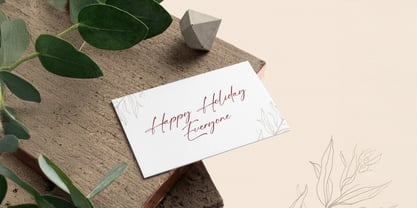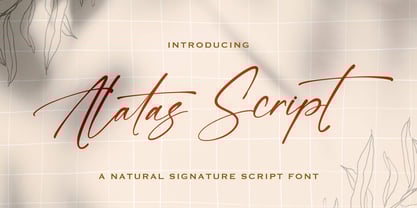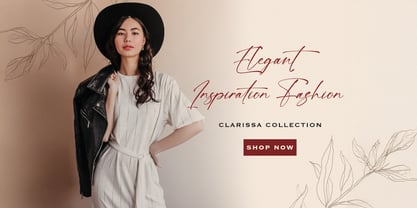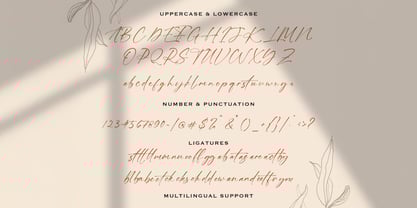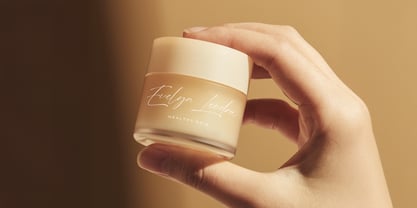
Alatas Script
von Stringlabs Creative Studio
Die Schriftfamilie Alatas Script wurde von Virgiawan Listanto entworfen und von Stringlabs Creative Studio veröffentlicht. Alatas Script enthält 1 Stile. Mehr über diese Familie
Alatas Script is a graceful signature script font designed with smooth strokes and natural flow, giving it an authentic handwritten elegance. Perfect for personal branding, fashion logos, wedding invitations, photography watermarks, and product packaging, this font brings sophistication and charm to every project. With stylish ligatures and modern aesthetics, Alatas Script adds a luxurious, personal touch that makes your design stand out with timeless beauty.
Designer: Virgiawan Listanto
Foundry: Stringlabs Creative Studio